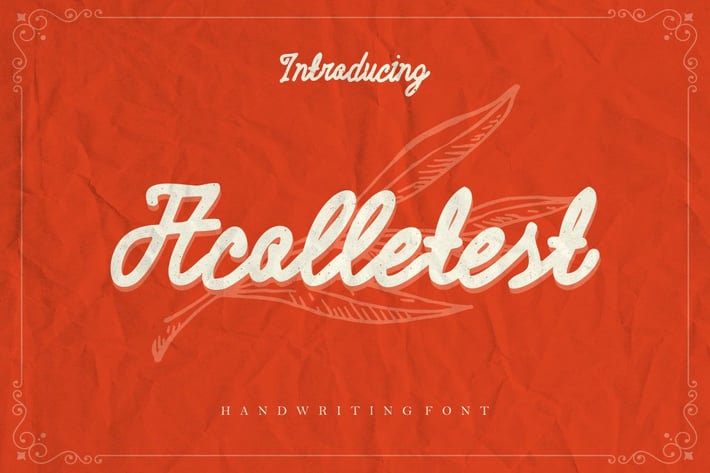
Acolletest - Modern Script Font
Introducing Acolletest , a cool and elegant Modern Script Font. Elegant font feel. This font gives you a beautiful and modern atmosphere. suitable for Logo, Social media, posters, Brochure, And many more.